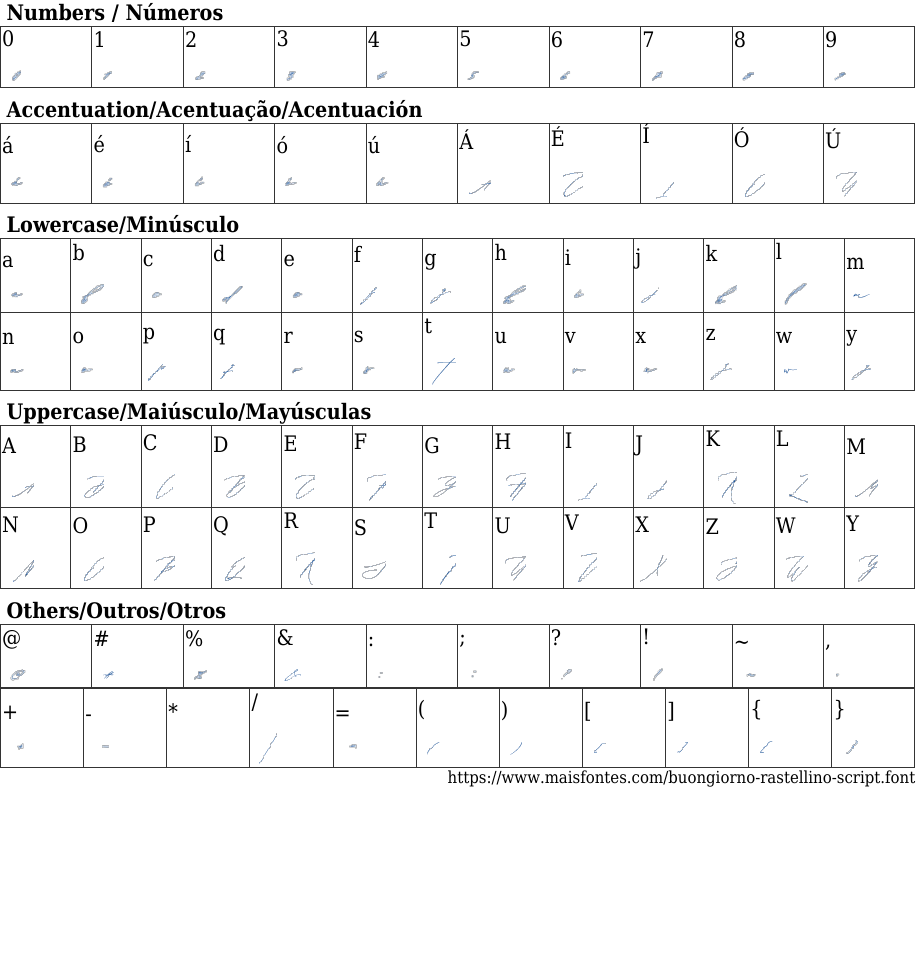
Buongiorno Rastellino Font - Buongiorno rastellino is a delicate and stylish handwritten script font. Download buongiorno rastellino font, an elegant, delicate and graceful calligraphic handwritten script font. Click here and download the buongiorno rastellino font · window, mac, linux · last updated 2024 · commercial licence included It has a smooth, unique, and clean vibe and it will be a. Ideal for wedding invitations, greeting cards, personal branding, and elegant logos. Buongiorno rastellino script font by ira dvilyuk. See poster examples and learn. The buongiorno rastellino script font has a script typography and is great for elegant invitation art. Make the art more fun because you've already.
Download buongiorno rastellino font, an elegant, delicate and graceful calligraphic handwritten script font. Buongiorno rastellino is a delicate and stylish handwritten script font. It has a smooth, unique, and clean vibe and it will be a. Ideal for wedding invitations, greeting cards, personal branding, and elegant logos. Make the art more fun because you've already. See poster examples and learn. Click here and download the buongiorno rastellino font · window, mac, linux · last updated 2024 · commercial licence included The buongiorno rastellino script font has a script typography and is great for elegant invitation art. Buongiorno rastellino script font by ira dvilyuk.
Buongiorno rastellino is a delicate and stylish handwritten script font. It has a smooth, unique, and clean vibe and it will be a. See poster examples and learn. Buongiorno rastellino script font by ira dvilyuk. Ideal for wedding invitations, greeting cards, personal branding, and elegant logos. Make the art more fun because you've already. Download buongiorno rastellino font, an elegant, delicate and graceful calligraphic handwritten script font. Click here and download the buongiorno rastellino font · window, mac, linux · last updated 2024 · commercial licence included The buongiorno rastellino script font has a script typography and is great for elegant invitation art.
Buongiorno rastellino script font by ira dvilyuk. Buongiorno rastellino is a delicate and stylish handwritten script font. Make the art more fun because you've already. Download buongiorno rastellino font, an elegant, delicate and graceful calligraphic handwritten script font. The buongiorno rastellino script font has a script typography and is great for elegant invitation art.
Download buongiorno rastellino font, an elegant, delicate and graceful calligraphic handwritten script font. Make the art more fun because you've already. Ideal for wedding invitations, greeting cards, personal branding, and elegant logos. See poster examples and learn. Click here and download the buongiorno rastellino font · window, mac, linux · last updated 2024 · commercial licence included
Buongiorno rastellino script font by ira dvilyuk. Download buongiorno rastellino font, an elegant, delicate and graceful calligraphic handwritten script font. Ideal for wedding invitations, greeting cards, personal branding, and elegant logos. Make the art more fun because you've already. See poster examples and learn.
Click here and download the buongiorno rastellino font · window, mac, linux · last updated 2024 · commercial licence included See poster examples and learn. The buongiorno rastellino script font has a script typography and is great for elegant invitation art. Ideal for wedding invitations, greeting cards, personal branding, and elegant logos. Buongiorno rastellino is a delicate and stylish handwritten.
Make the art more fun because you've already. The buongiorno rastellino script font has a script typography and is great for elegant invitation art. Buongiorno rastellino script font by ira dvilyuk. Ideal for wedding invitations, greeting cards, personal branding, and elegant logos. Click here and download the buongiorno rastellino font · window, mac, linux · last updated 2024 · commercial.
Buongiorno Rastellino font Cyrillic By Ira Dvilyuk TheHungryJPEG
Buongiorno rastellino is a delicate and stylish handwritten script font. Click here and download the buongiorno rastellino font · window, mac, linux · last updated 2024 · commercial licence included See poster examples and learn. It has a smooth, unique, and clean vibe and it will be a. Make the art more fun because you've already.
Buongiorno Rastellino Font Free Download FreeFontDL
Click here and download the buongiorno rastellino font · window, mac, linux · last updated 2024 · commercial licence included It has a smooth, unique, and clean vibe and it will be a. See poster examples and learn. Buongiorno rastellino is a delicate and stylish handwritten script font. Ideal for wedding invitations, greeting cards, personal branding, and elegant logos.
Buongiorno Rastellino Font FreeDaFonts
It has a smooth, unique, and clean vibe and it will be a. Ideal for wedding invitations, greeting cards, personal branding, and elegant logos. Download buongiorno rastellino font, an elegant, delicate and graceful calligraphic handwritten script font. Click here and download the buongiorno rastellino font · window, mac, linux · last updated 2024 · commercial licence included The buongiorno rastellino.
Buongiorno Rastellino Is A Delicate And Stylish Handwritten Script Font.
It has a smooth, unique, and clean vibe and it will be a. Buongiorno rastellino script font by ira dvilyuk. Download buongiorno rastellino font, an elegant, delicate and graceful calligraphic handwritten script font.